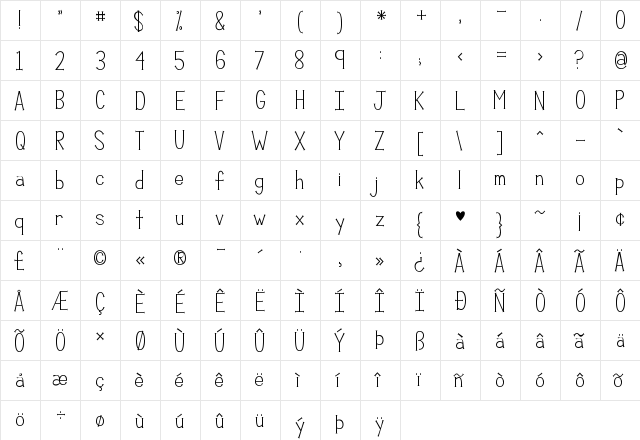
KG Compassion Regular
| Foundry | Kimberly Geswein |
| Designer | Kimberly Geswein |
Design Context for KG Compassion Typeface
KG Compassion offers clean, dependable letterforms without strong stylistic allegiance, making it a practical choice for designers who need flexibility.
Pro Tip: Pair KG Compassion with a font of contrasting weight or personality to build a more expressive typographic hierarchy.